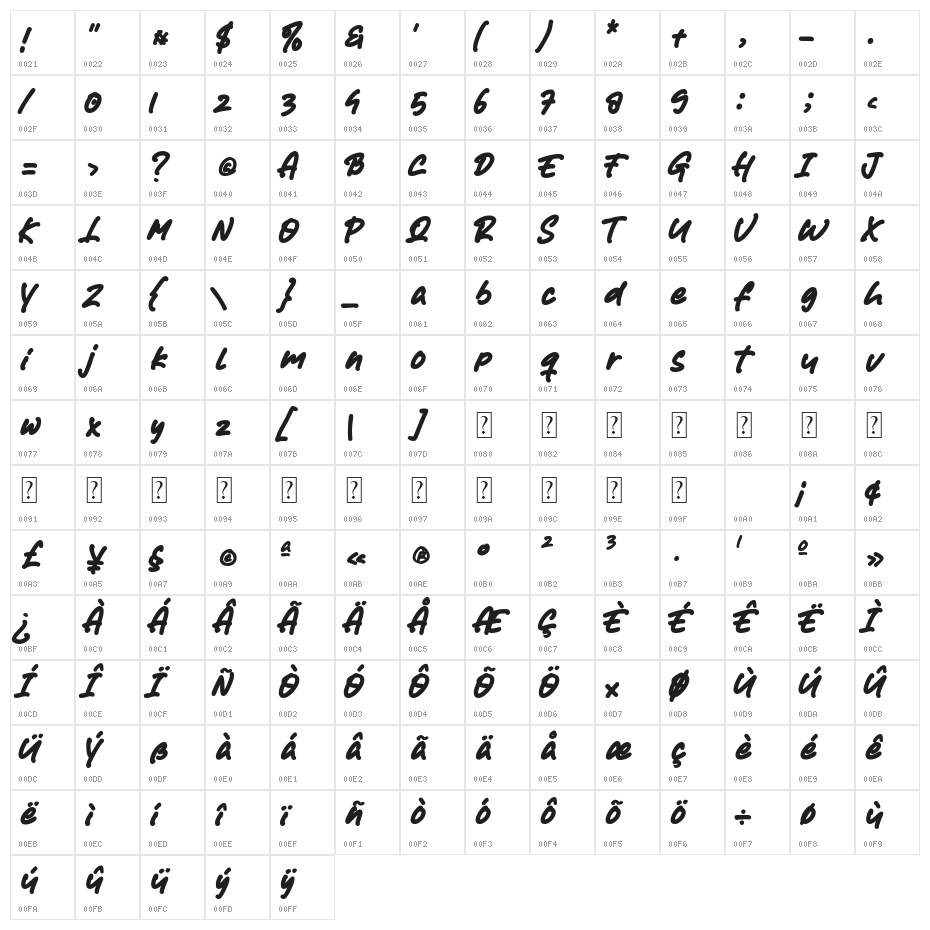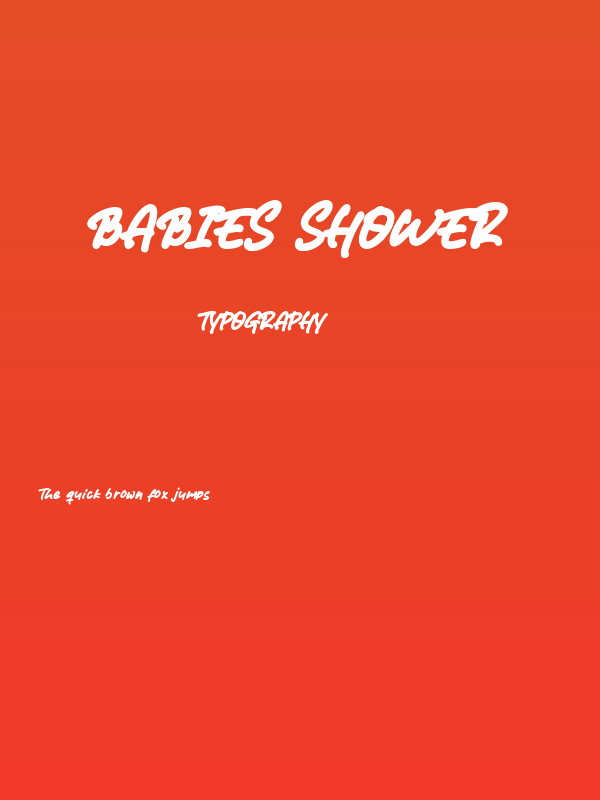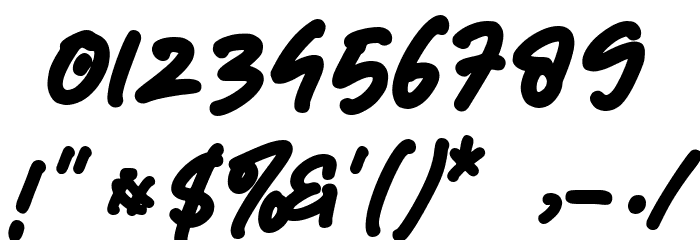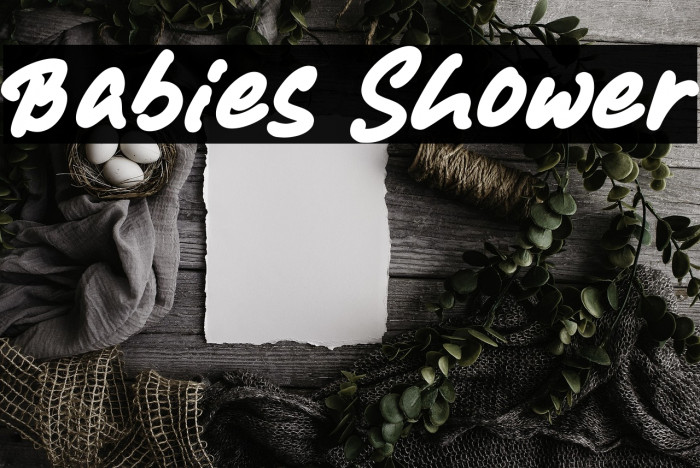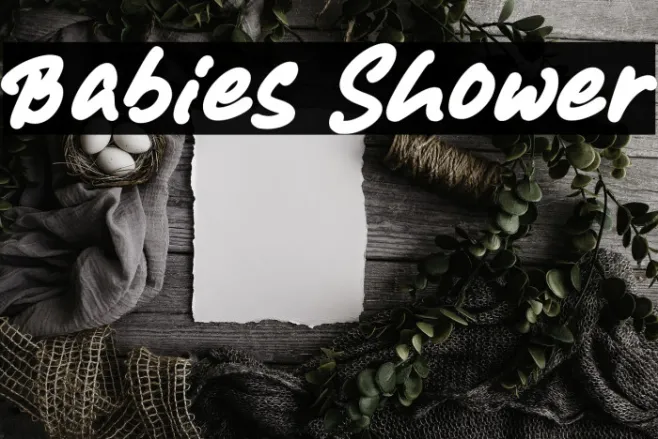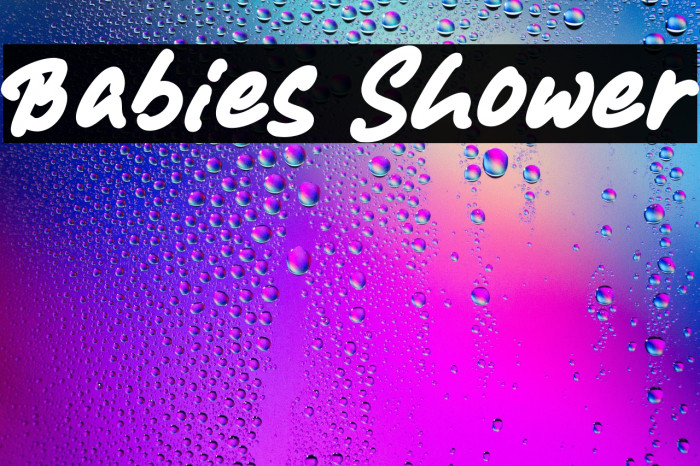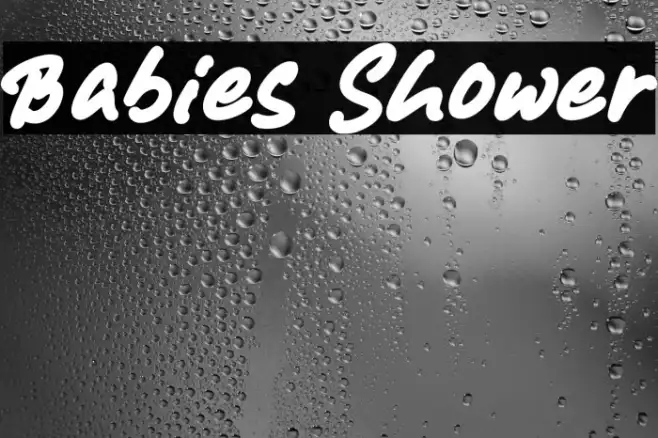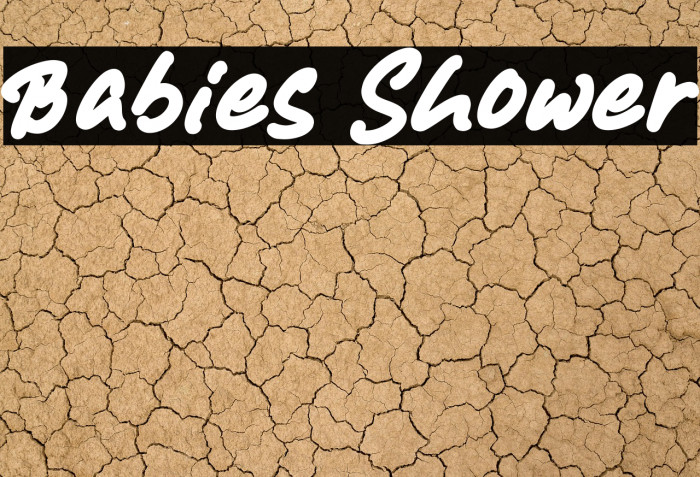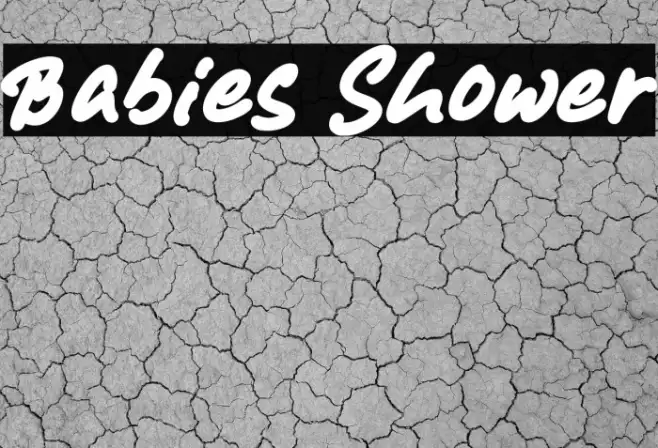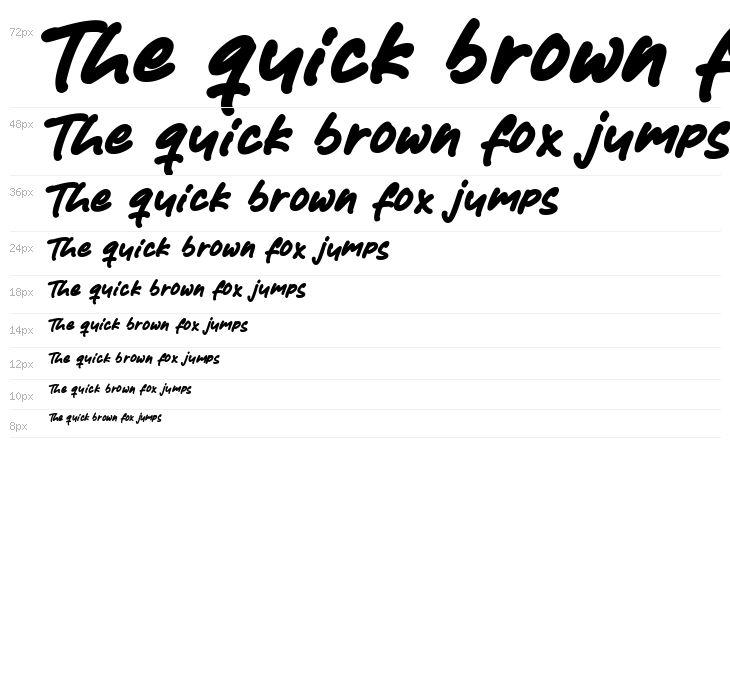
Babies Shower Font
Babies Shower Description
This font features a bold, handwritten style with a playful and energetic appearance. The letters are slightly slanted, giving it a dynamic and informal feel. Each character is crafted with a consistent stroke width, creating a cohesive look across the alphabet. The uppercase and lowercase letters maintain a harmonious balance, while the numbers and special characters are designed to match the overall aesthetic. The font's thick strokes and rounded edges add to its friendly and approachable nature, making it suitable for a variety of creative projects.
| Proposed Projects | Ideal for greeting cards, invitations, posters, and branding projects that require a personal touch. |